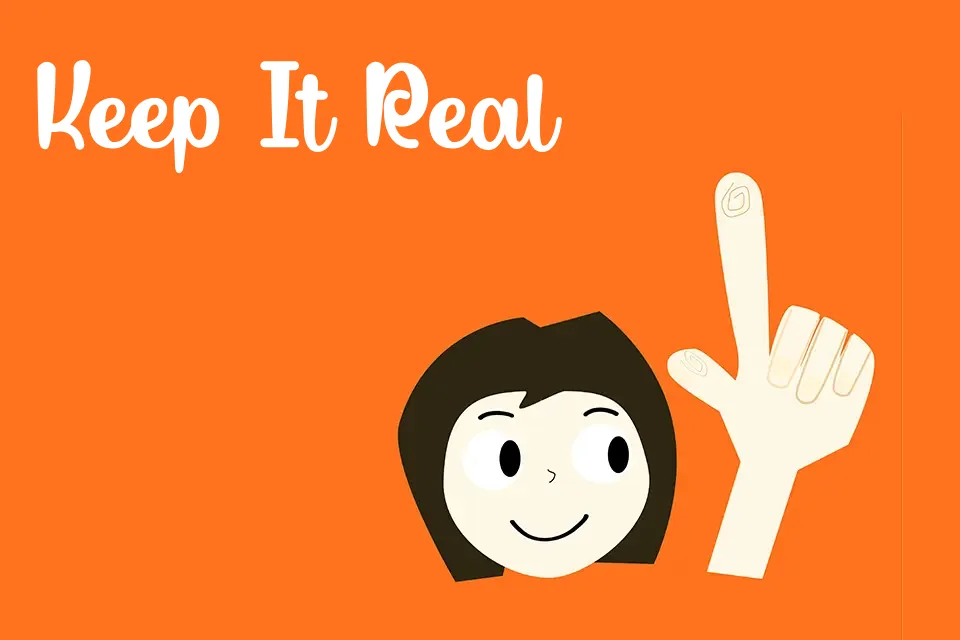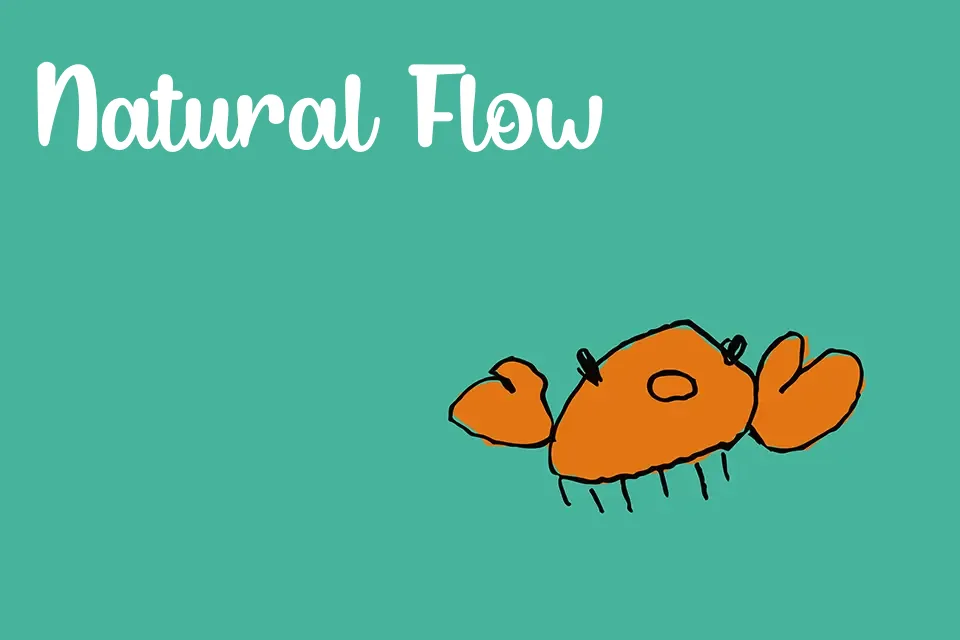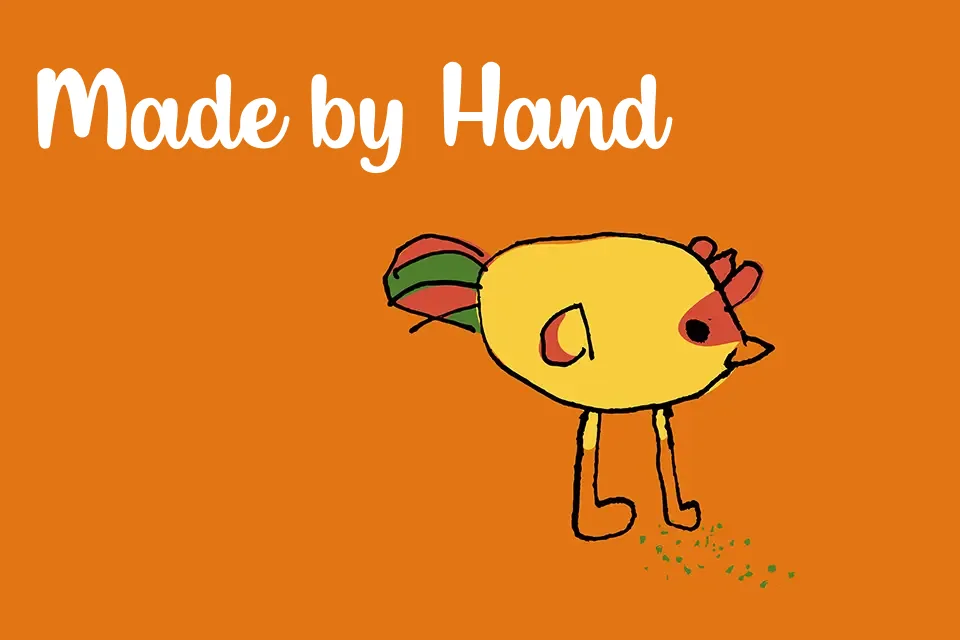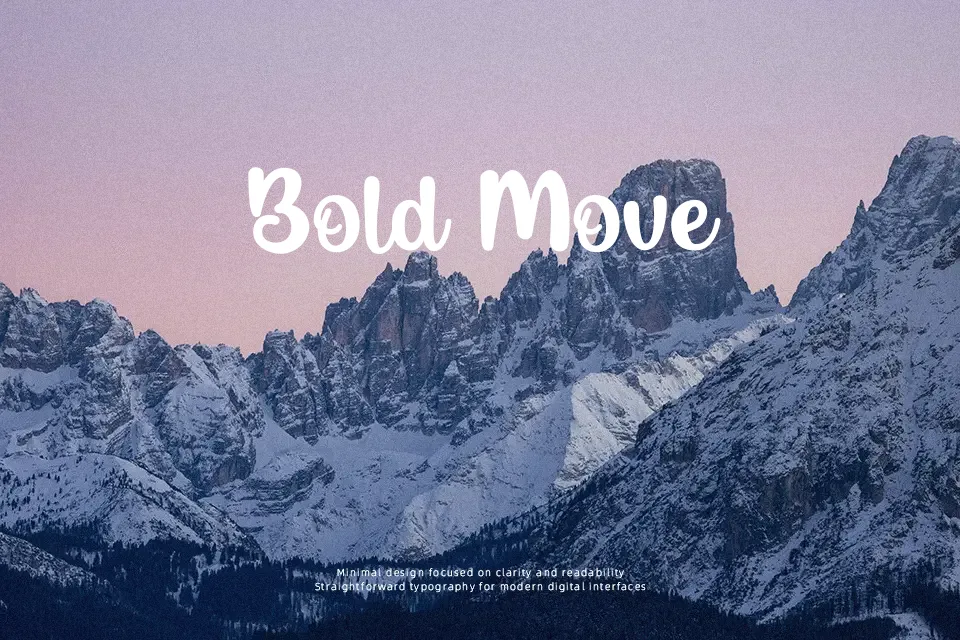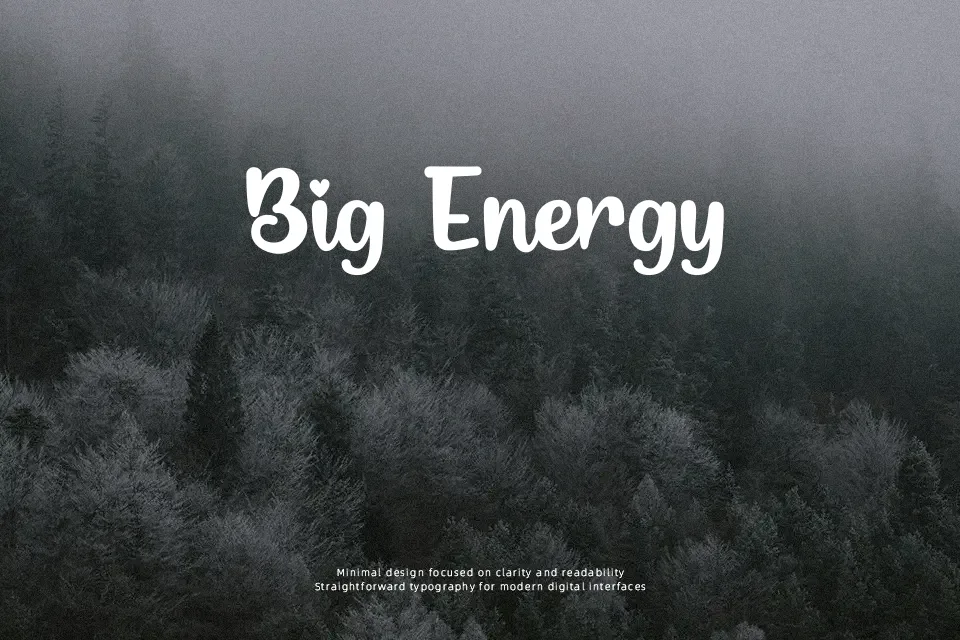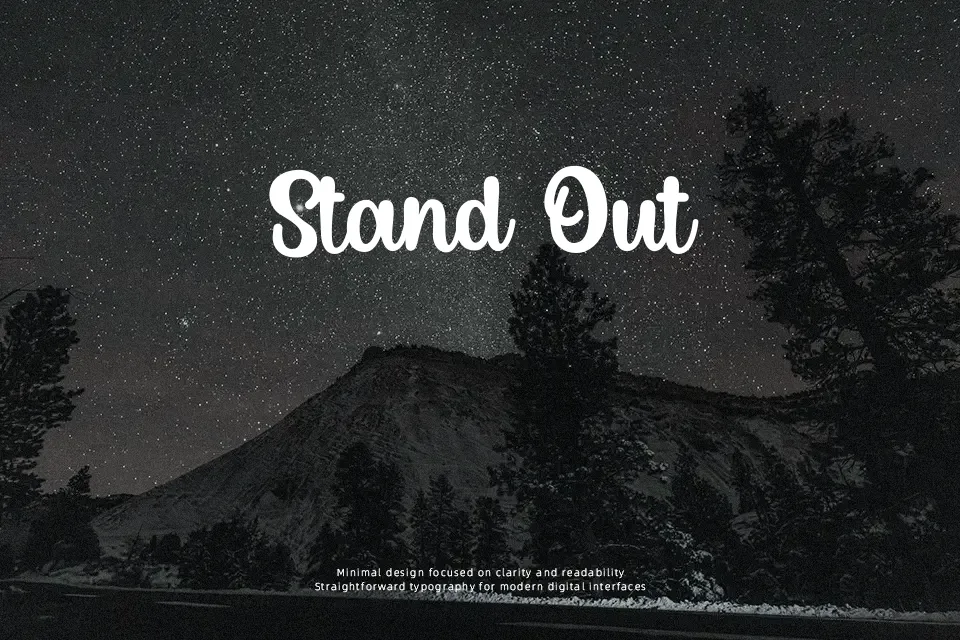
Soul Billani Font
Soul Billani Font uses bold rounded letterforms with an informal handwritten character and a distinctly playful display presence. Its thick, smooth strokes and soft proportions give short words a friendly, attention-getting rhythm, while the spacing keeps larger headline text easy to separate at a glance. The design is most effective in logos, posters, labels, and kid-focused graphics where personality matters more than neutral reading flow. The broad, decorative shapes maintain clarity at display sizes, but their expressive construction is less comfortable in compact text. It works best when used sparingly for a few prominent words rather than continuous copy.
children’s product packaging,playful poster headlines,logo lettering,party invitation titles
long paragraph text,small interface labels,legal documents,dense editorial layouts